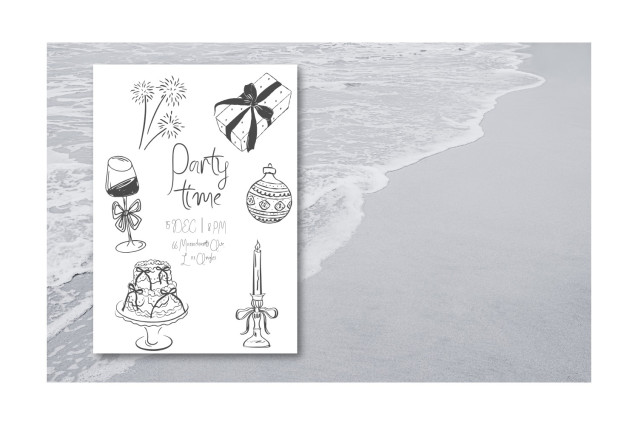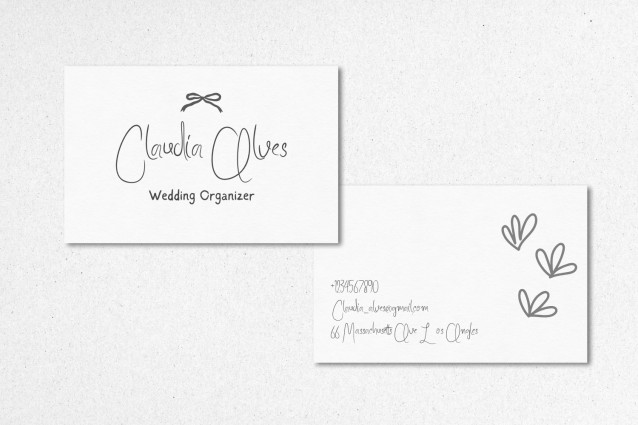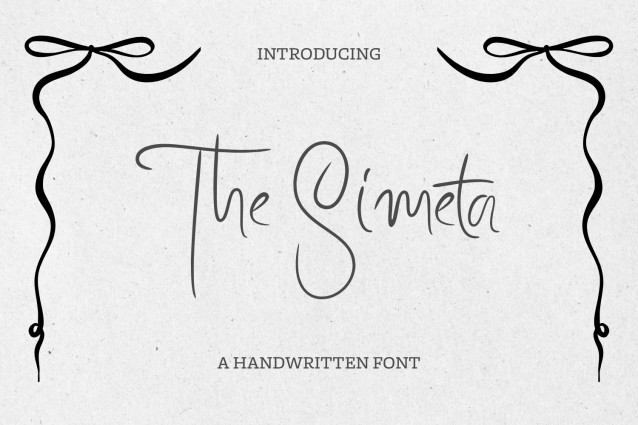
The Simeta Font
The Simeta Font, an elegant and delicate handwritten font that captures the essence of simplicity and sophistication. With its flowing strokes and organic curves, this font brings a personal and artistic touch to any design project. Ideal for wedding invitations, branding, quotes, and elegant stationery, The Simeta exudes warmth and authenticity, making your words truly stand out. Featuring beautiful ligatures and a refined aesthetic, it effortlessly blends modern minimalism with timeless charm.